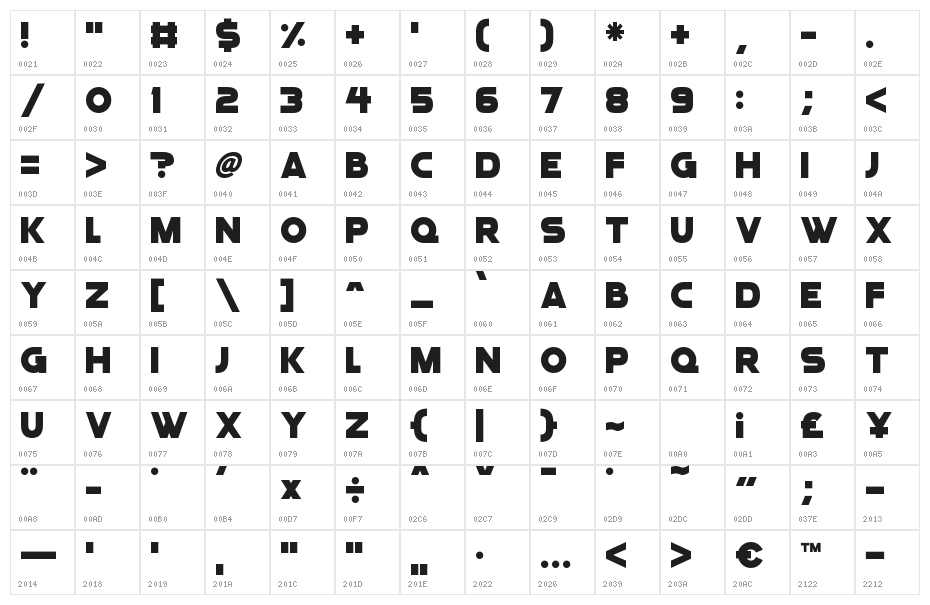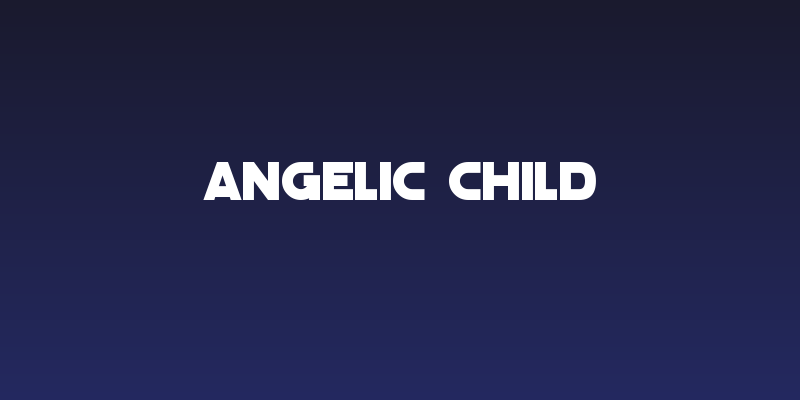
Angelic Child Font
Angelic Child Description
This font features a bold and impactful design with a strong geometric structure. The characters are wide and have a uniform thickness, giving them a robust and modern appearance. The uppercase letters are particularly striking, with a consistent height and width that create a sense of balance and stability. The numbers and special characters maintain the same boldness, ensuring readability and emphasis. This font is ideal for making a statement, with its clear and assertive style that commands attention.
Proposed ProjectsIdeal for headlines, posters, branding, and any project requiring a bold statement.